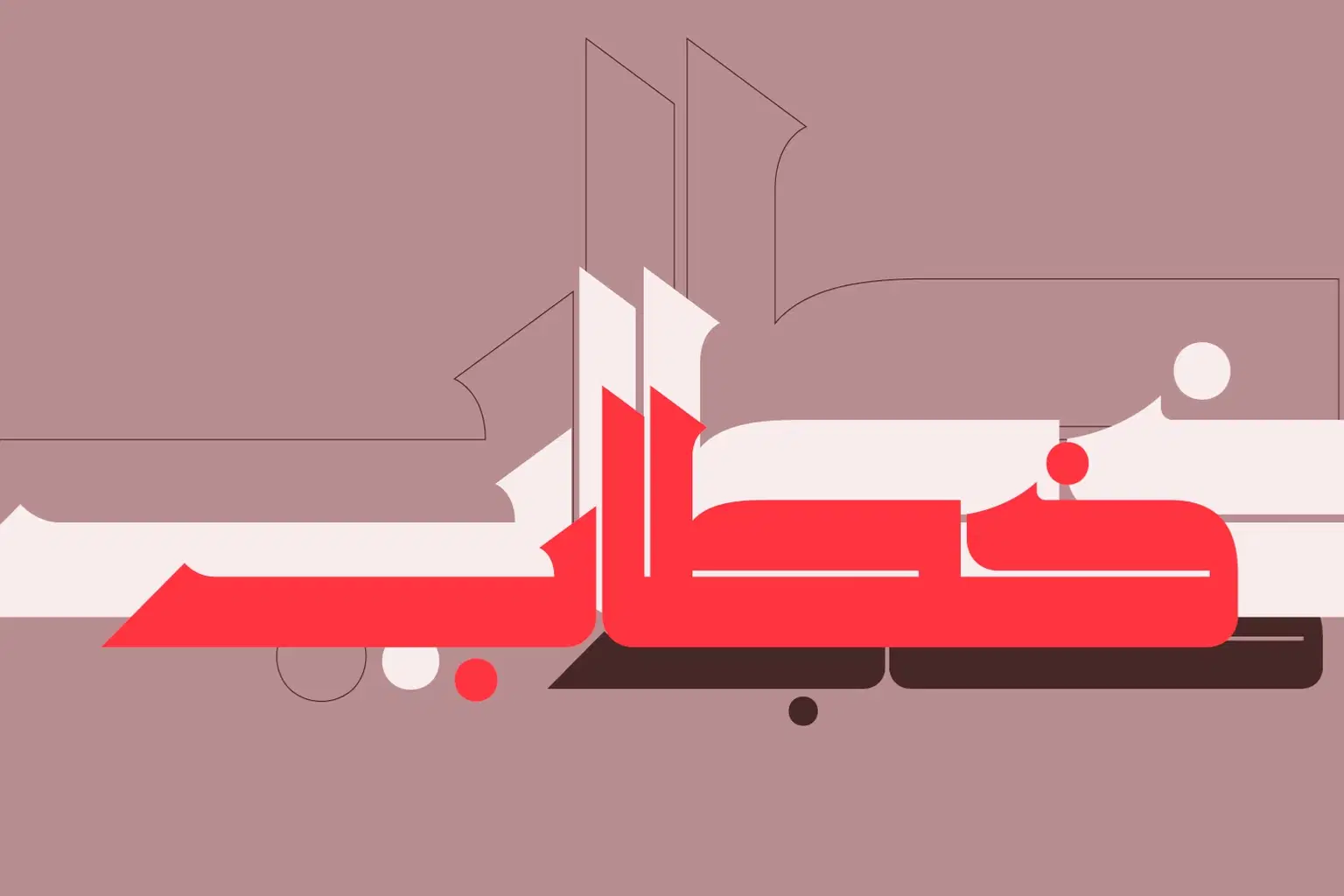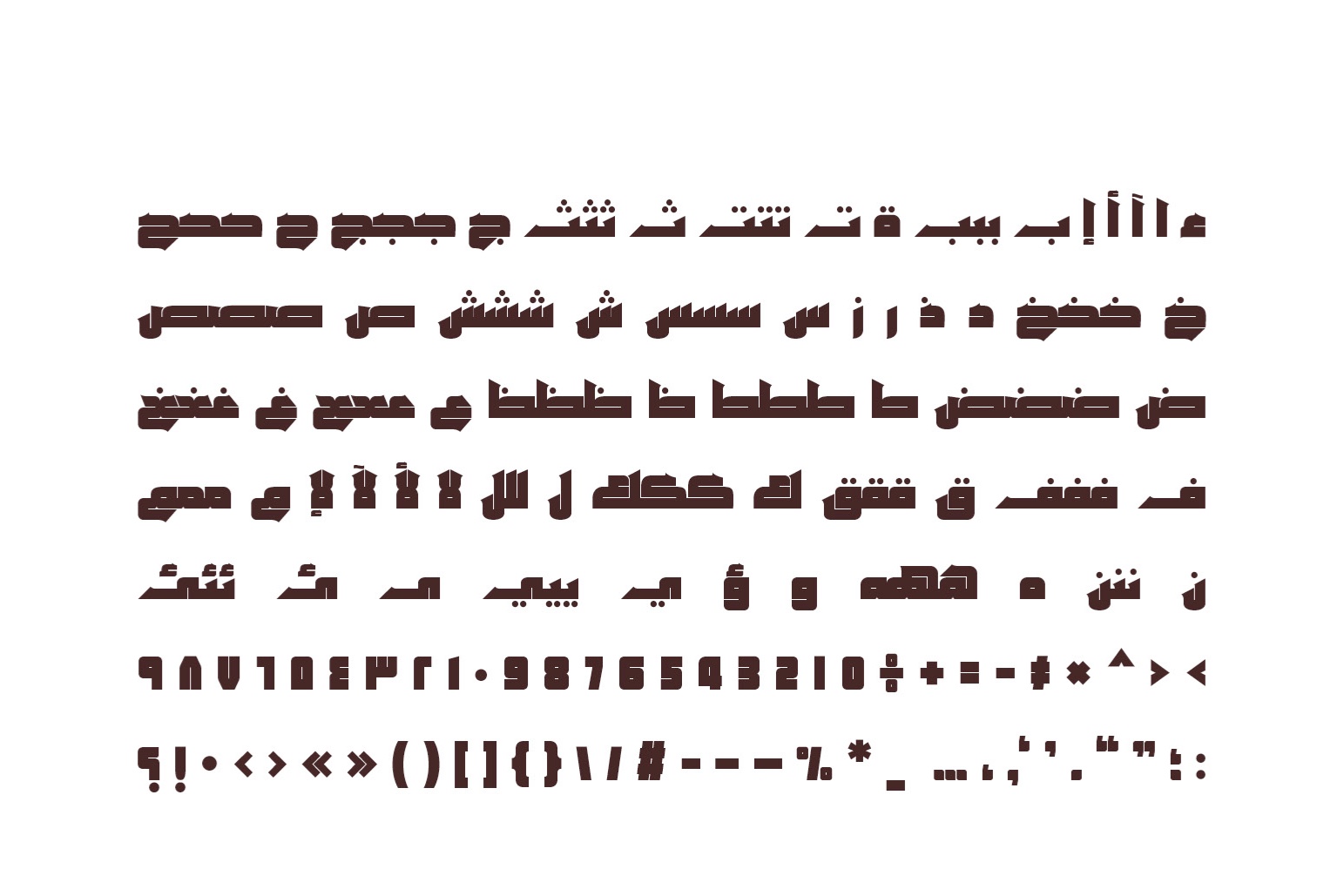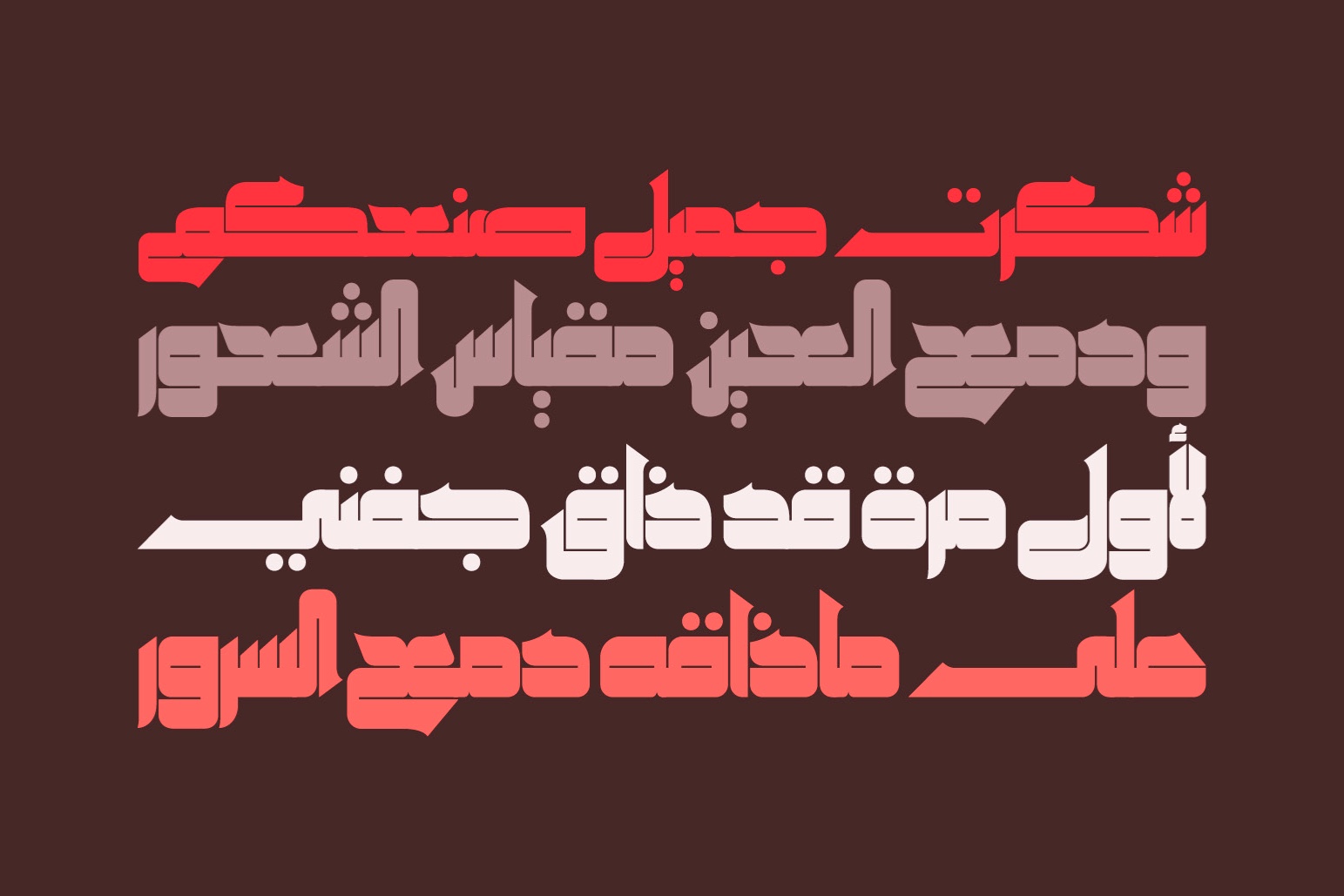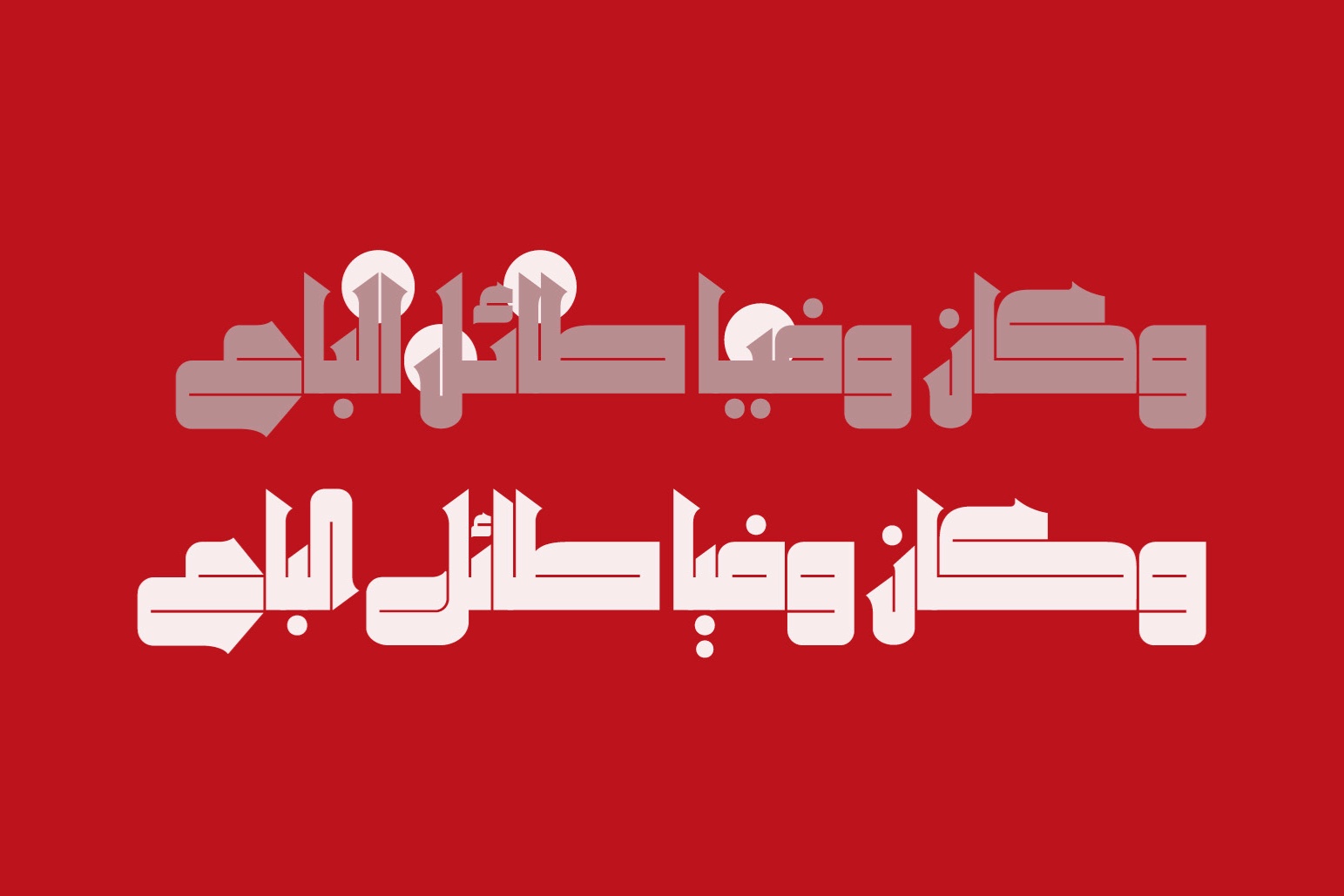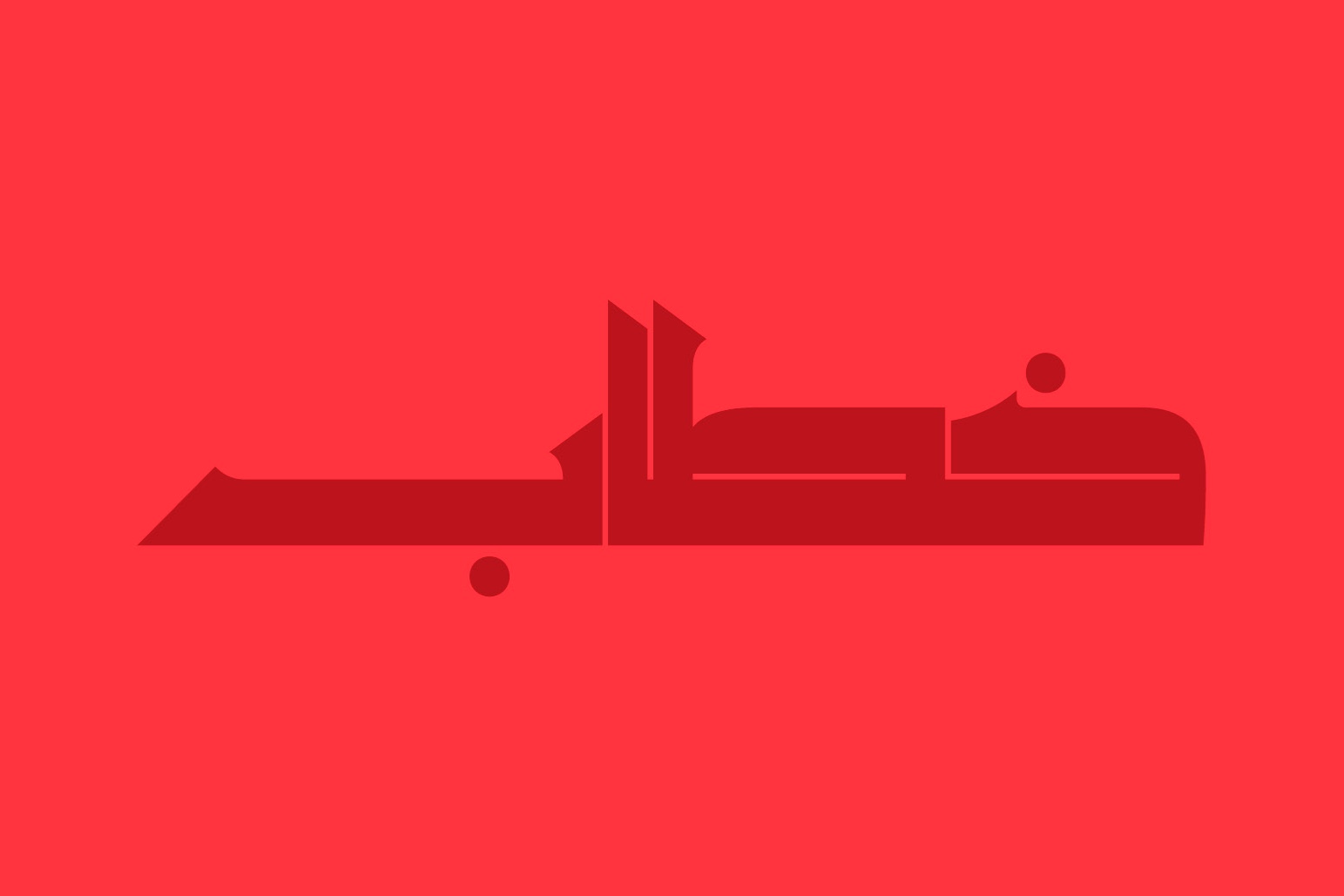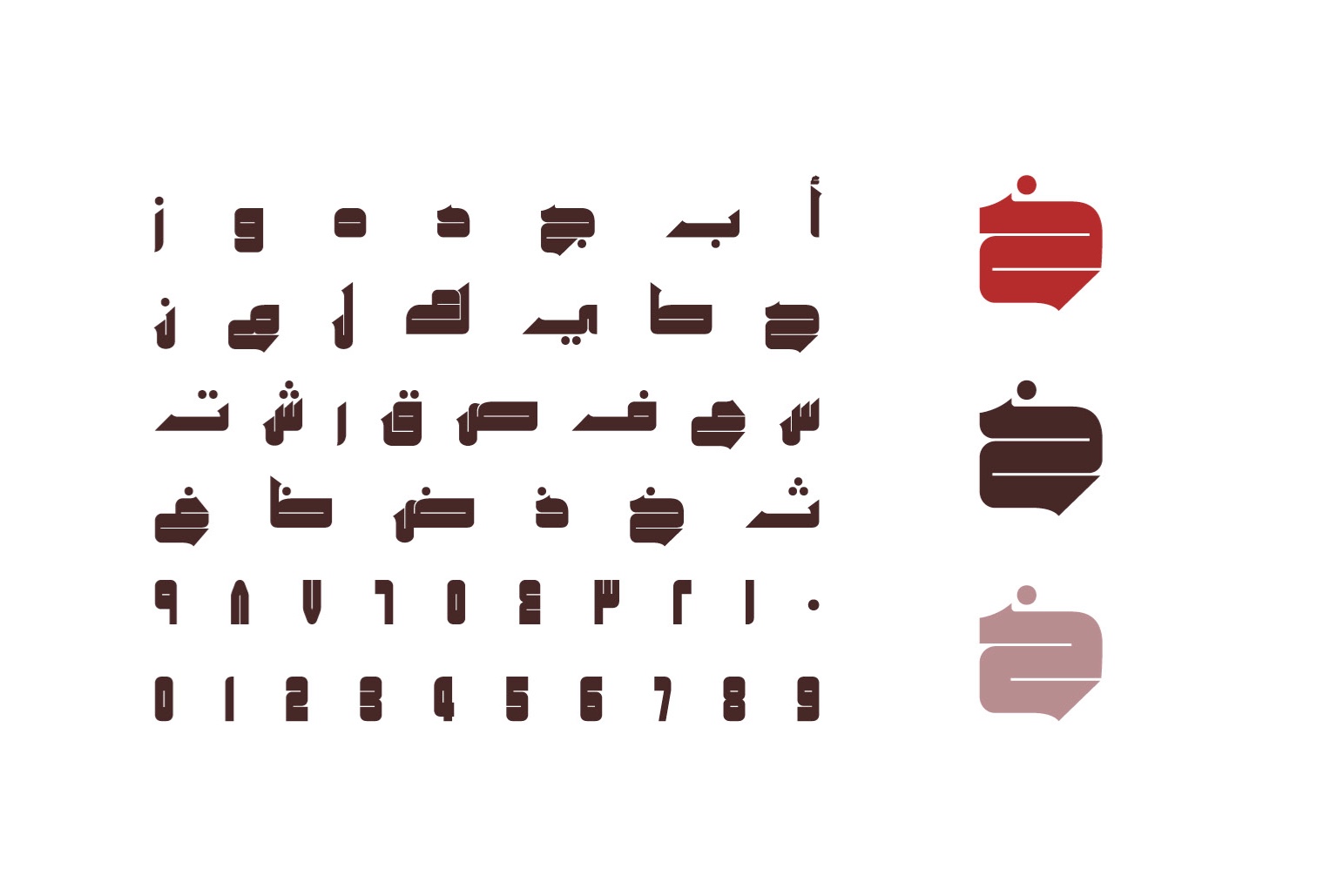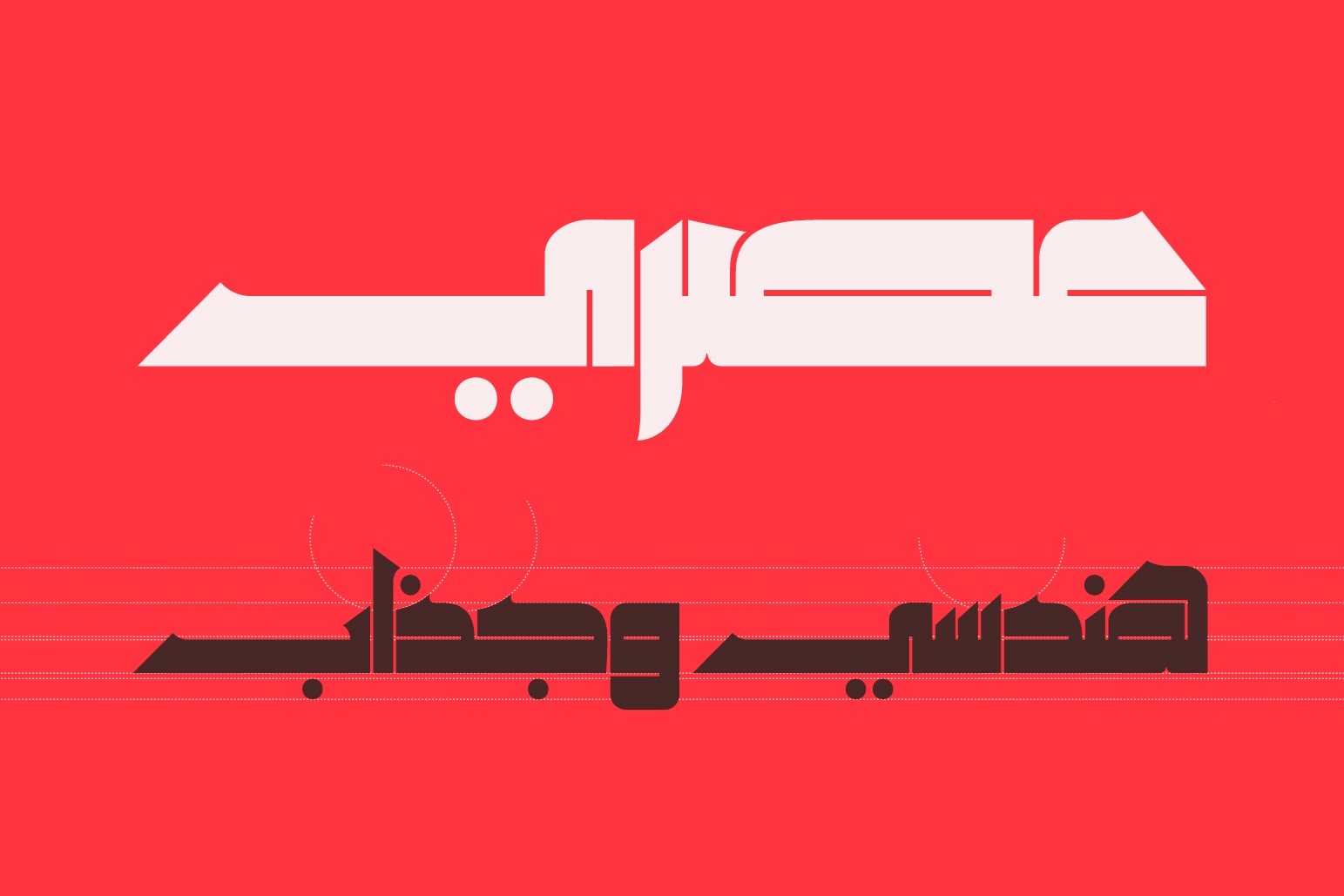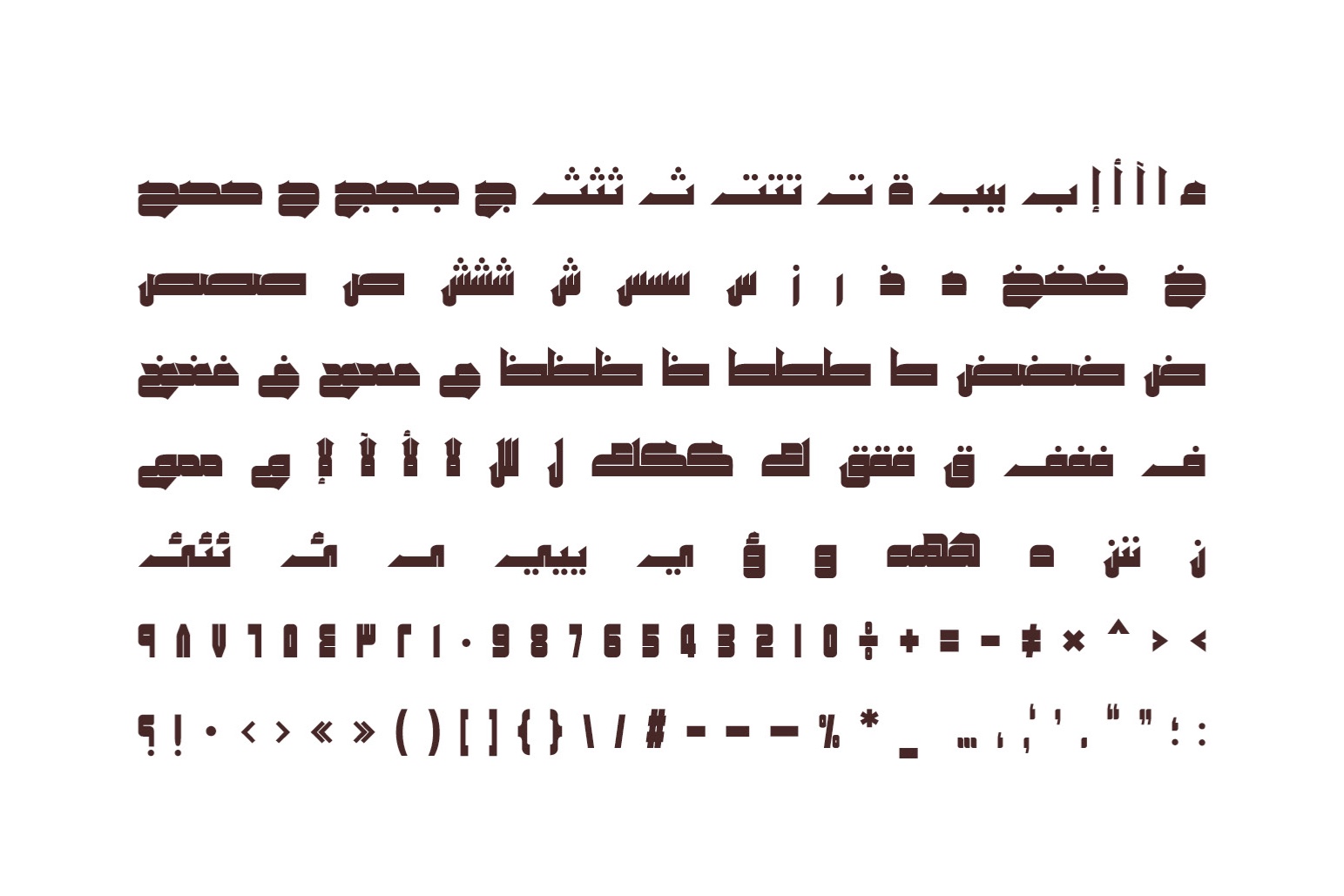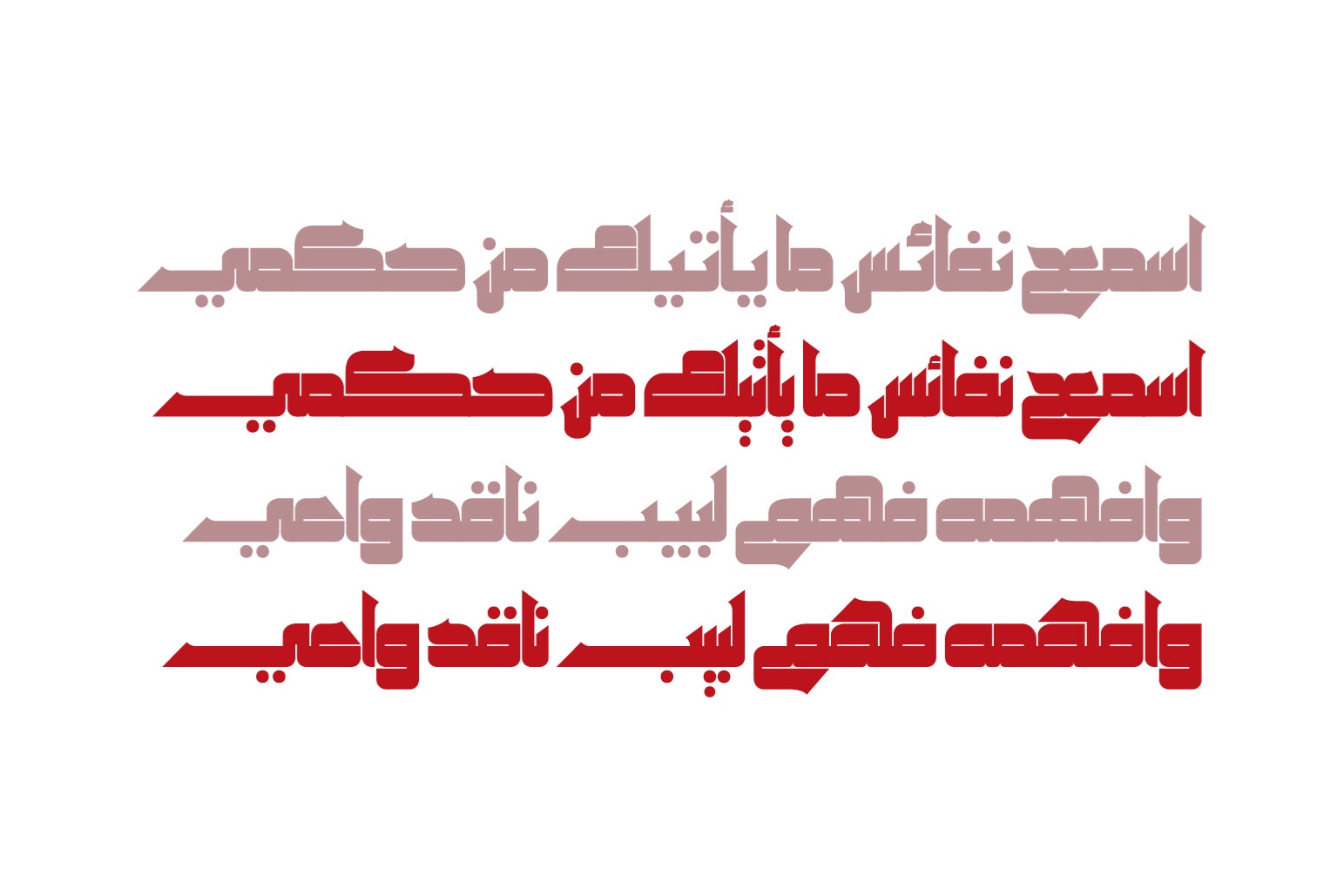
Khetab, derived from the Arabic term for 'Speech', is a display font characterized by its geometric design, drawing inspiration from ancient Kufic scripts. This font is ideal for branding, web design, and publication headings, featuring three distinct styles: sharp, wide, and rounded.
Sharp, wide, and rounded